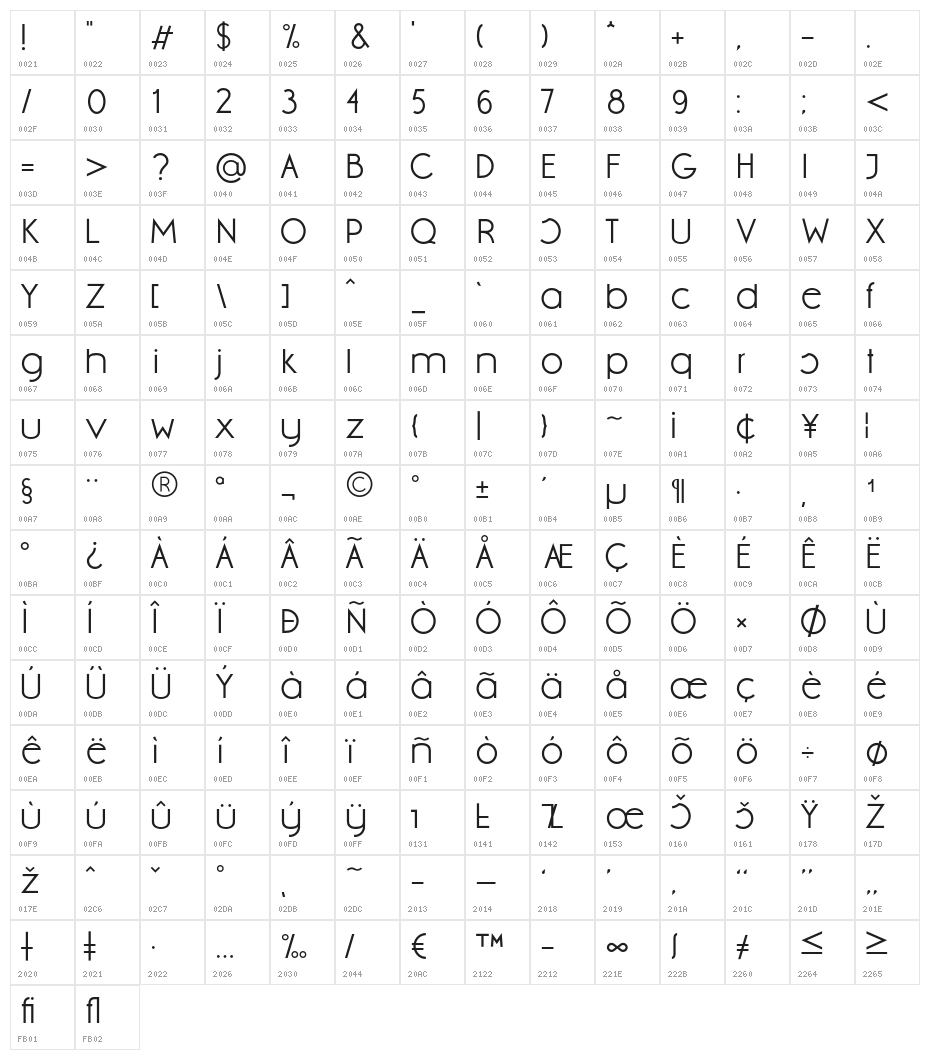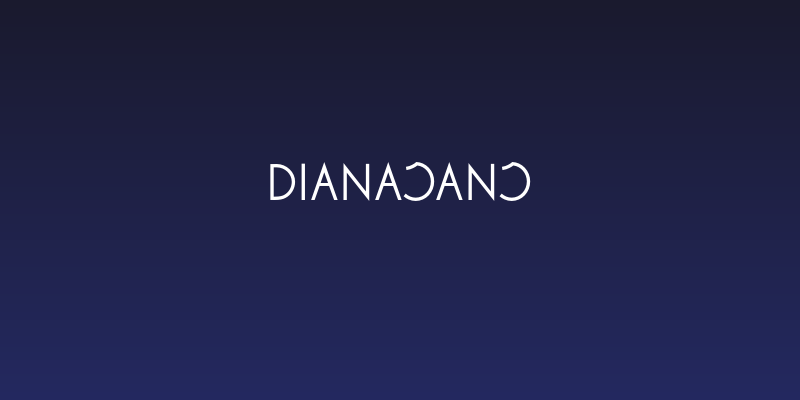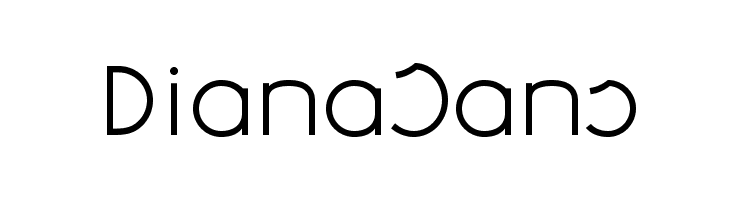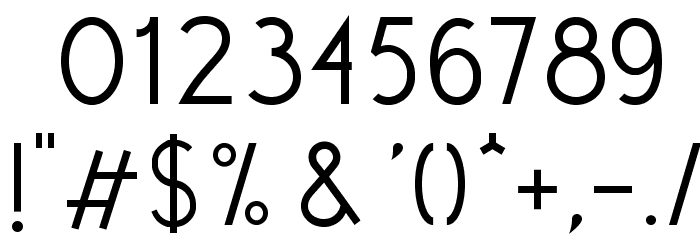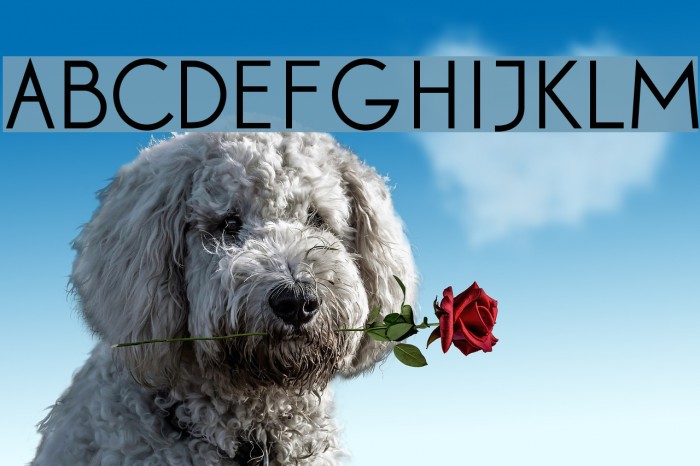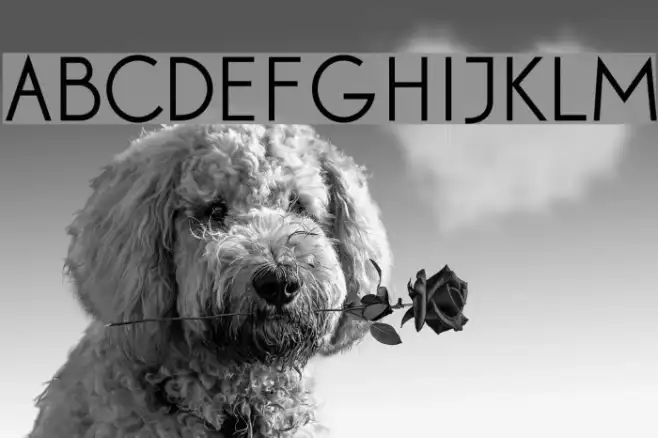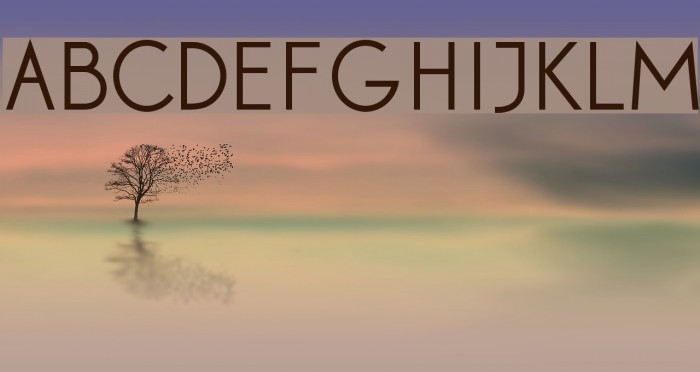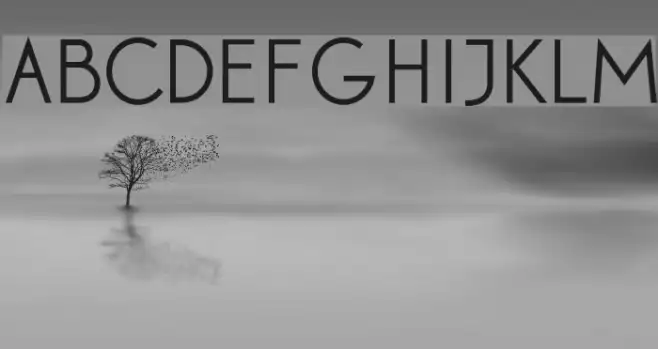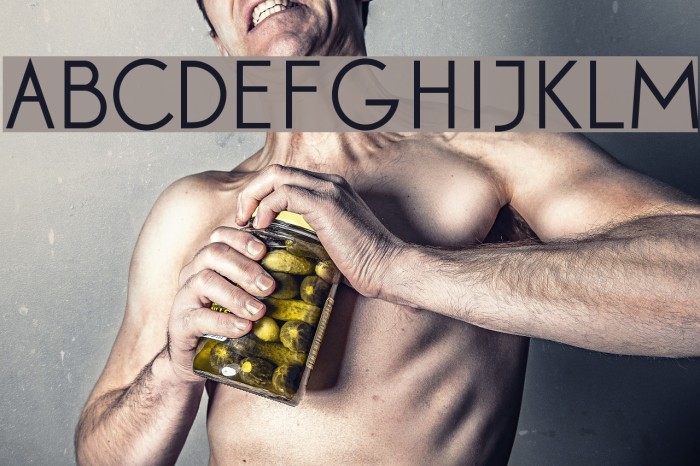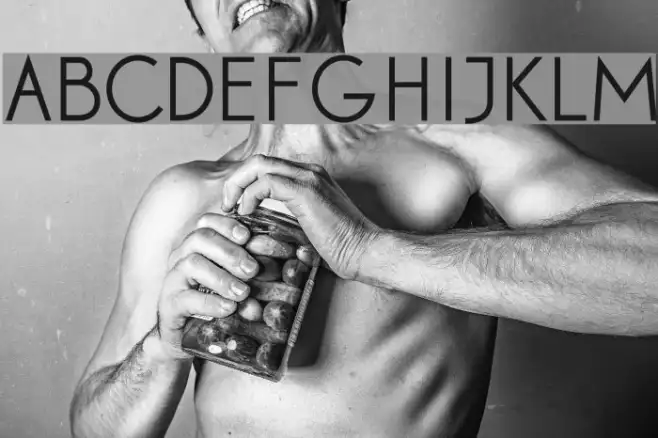
DianaSans Font
DianaSans Description
This font features a clean and modern sans-serif design, characterized by its geometric shapes and uniform stroke widths. The uppercase letters are bold and assertive, while the lowercase letters maintain a consistent style with rounded edges that add a touch of softness. The numerals are clear and easy to read, making them suitable for a variety of applications. Special characters are well-defined, ensuring versatility in usage. The overall appearance is sleek and contemporary, making it ideal for modern design projects.
| Proposed Projects | Ideal for branding, digital interfaces, advertising, and editorial design. |